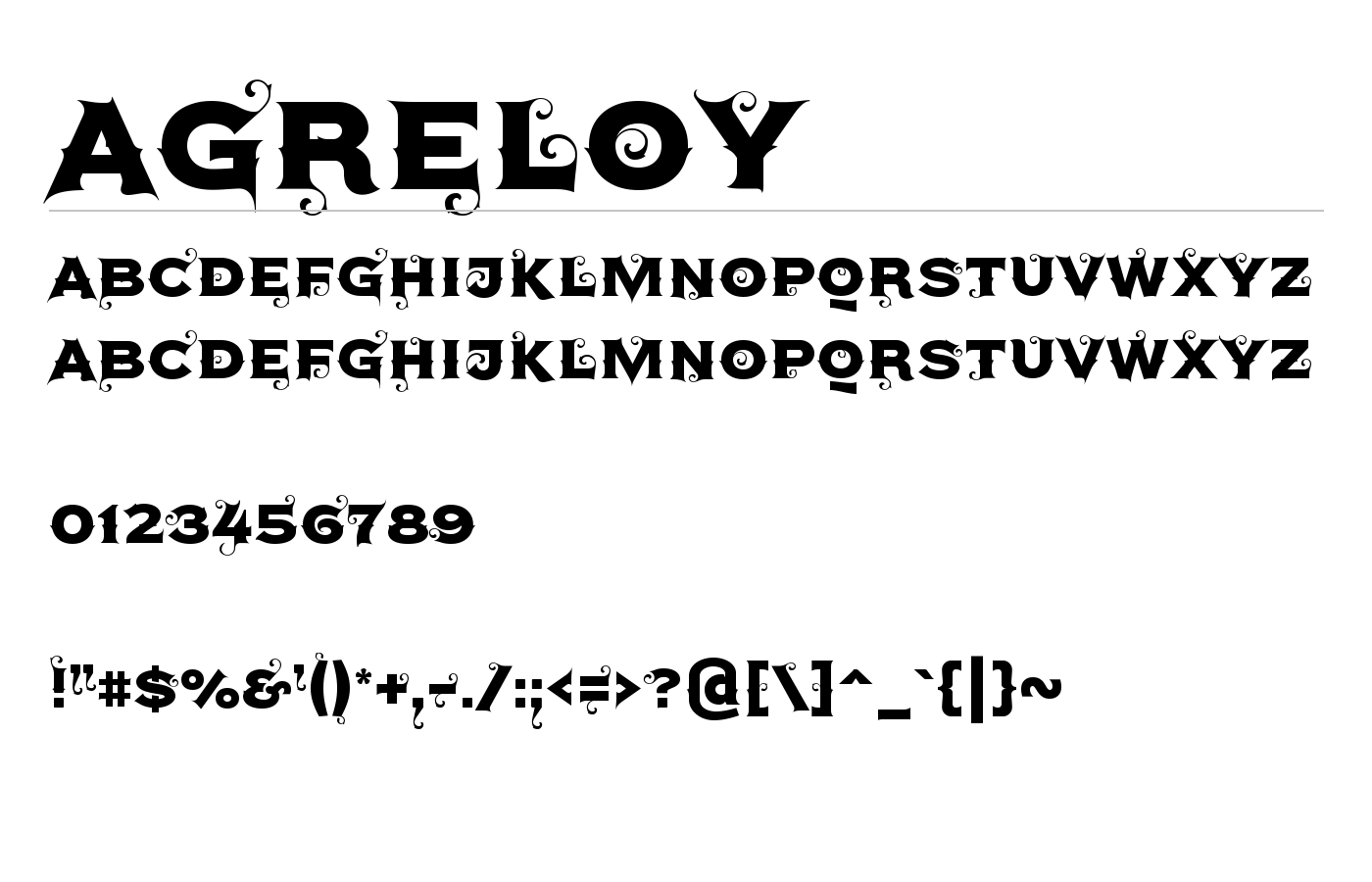
Agreloy is a bold, decorative serif font with high contrast and unique, whimsical curls and flourishes on many characters, giving it a playful yet vintage charm. Its heavy weight and ornate details make it perfect for eye-catching headlines, logos, or packaging that need a quirky, statement-making style. This font works well in creative or entertainment contexts where a distinctive, bold personality is desired.
Agreloy Font
About Agreloy Font